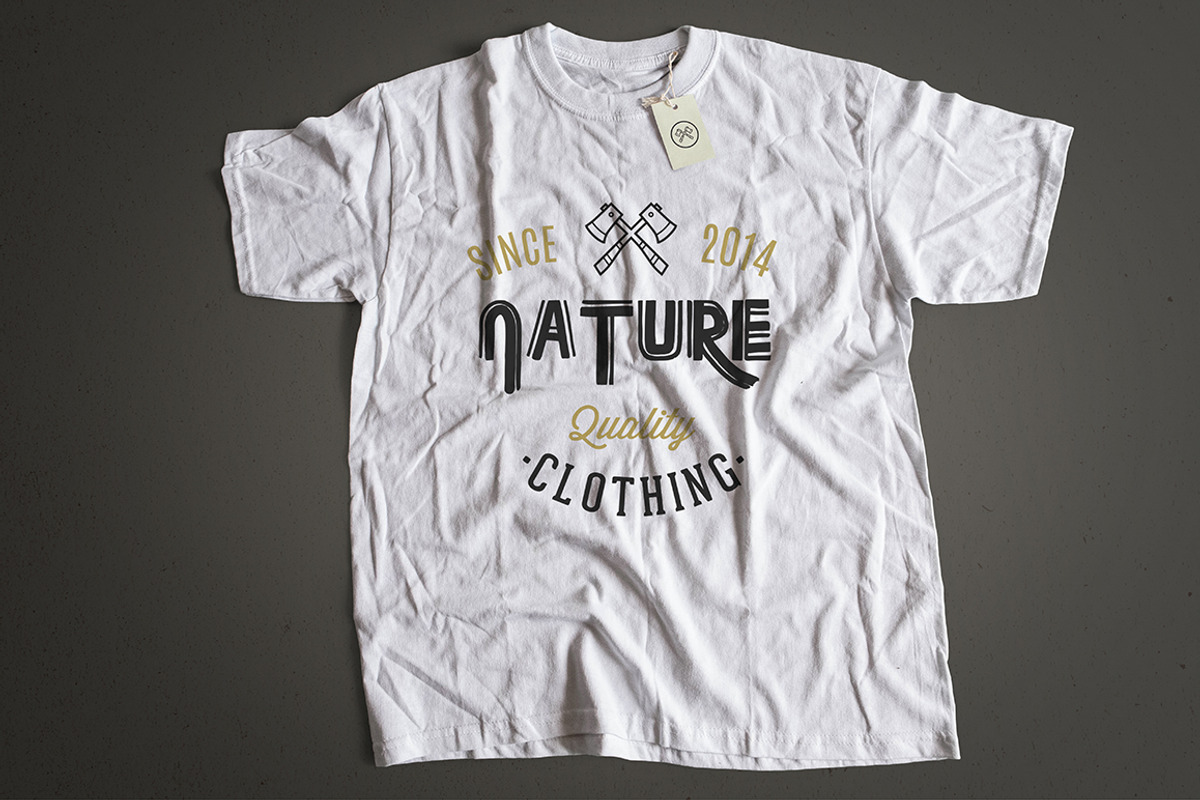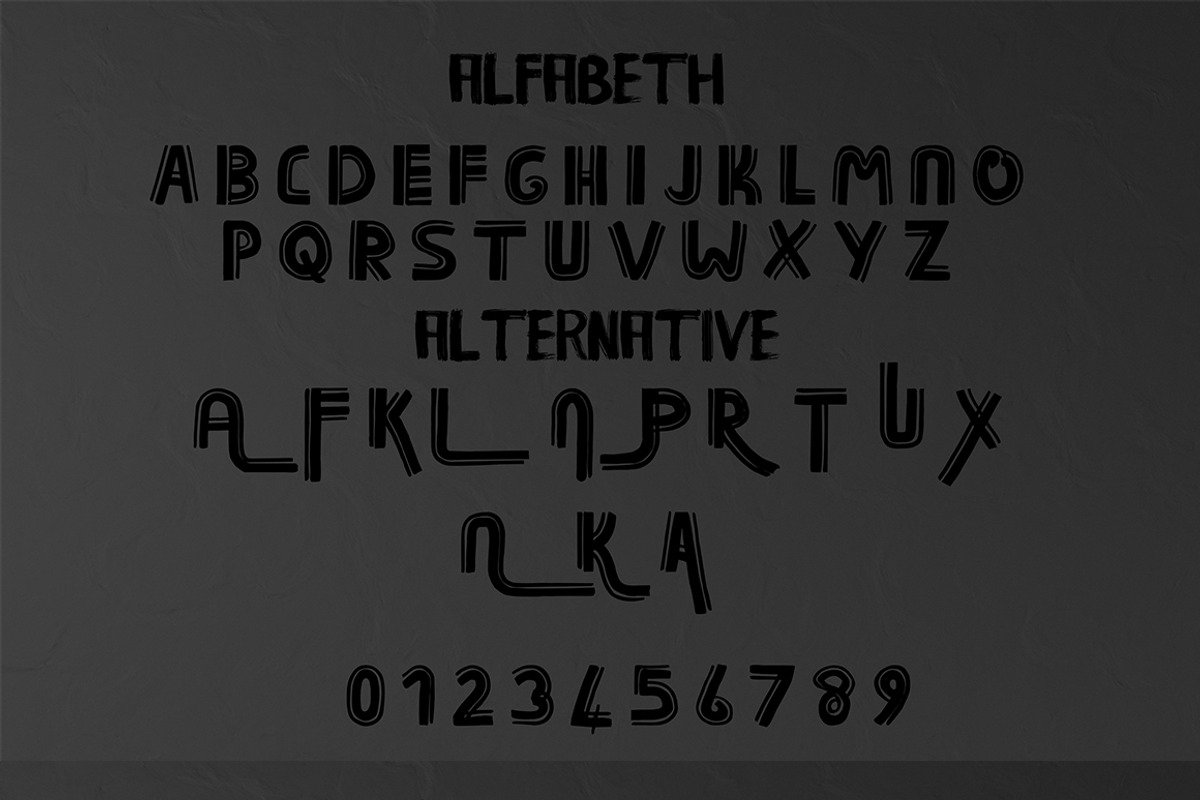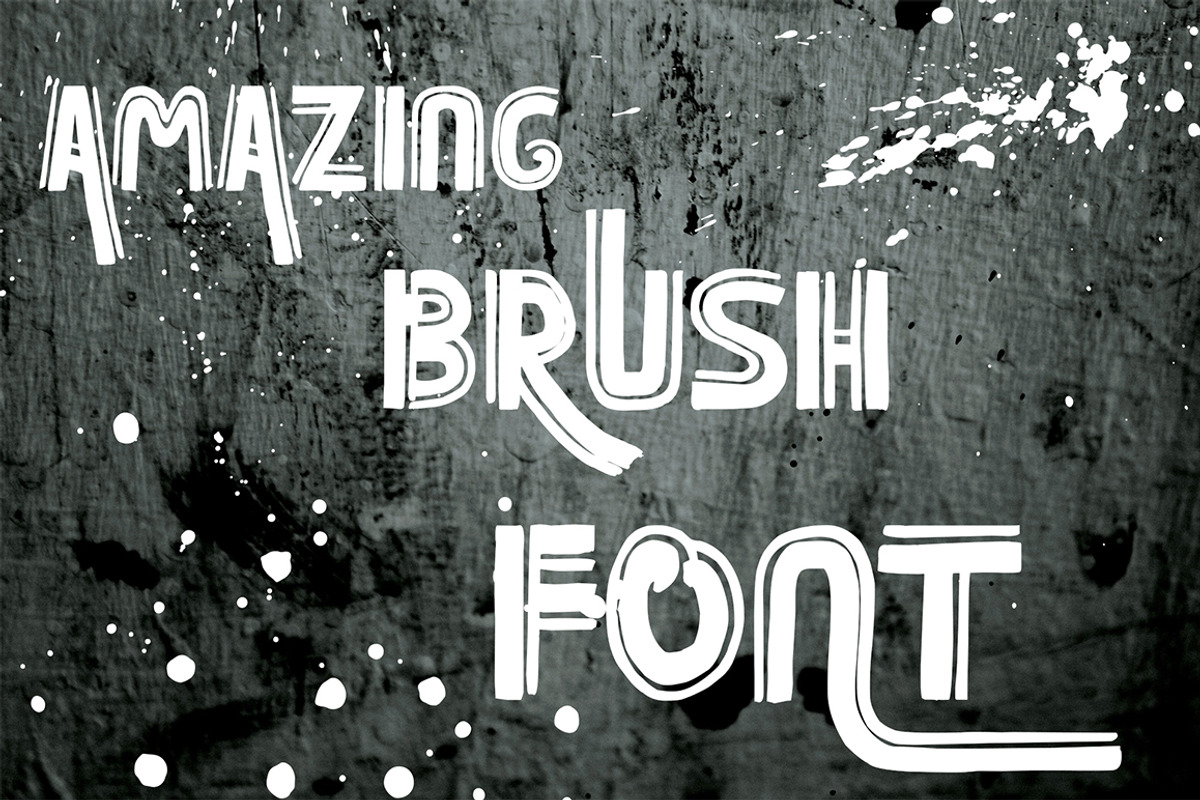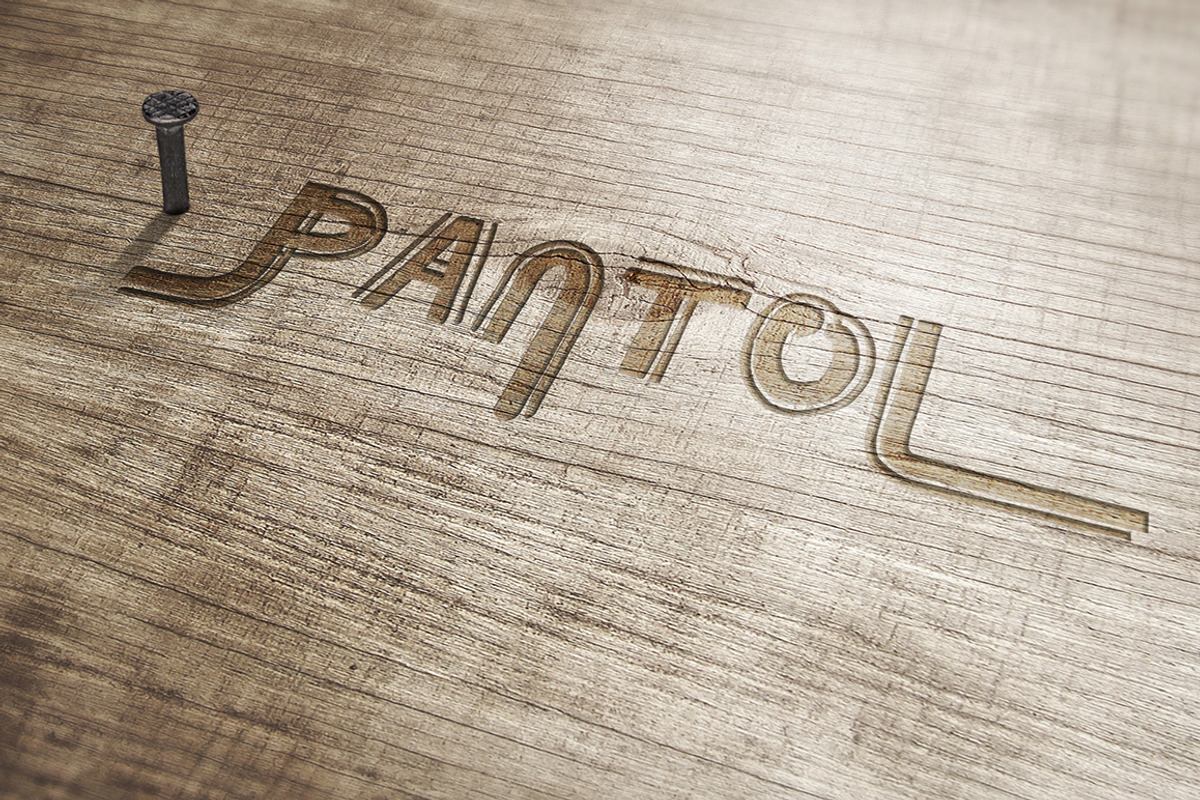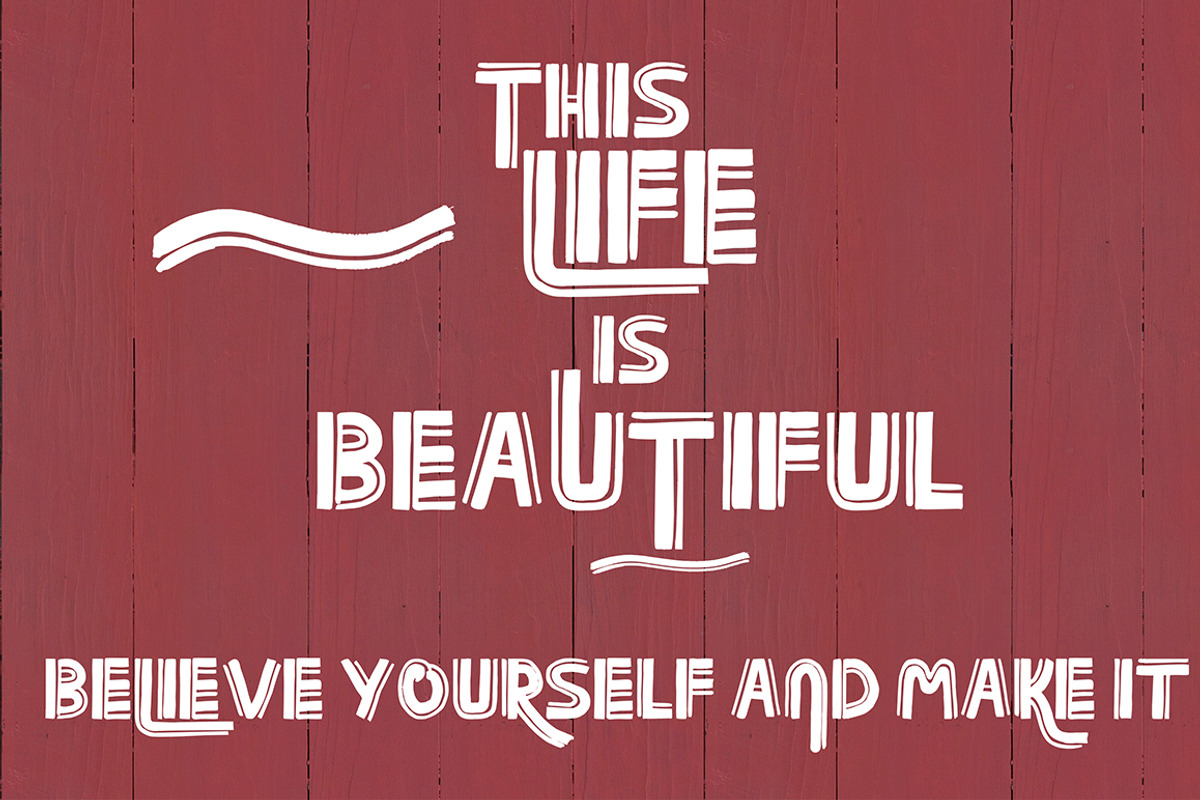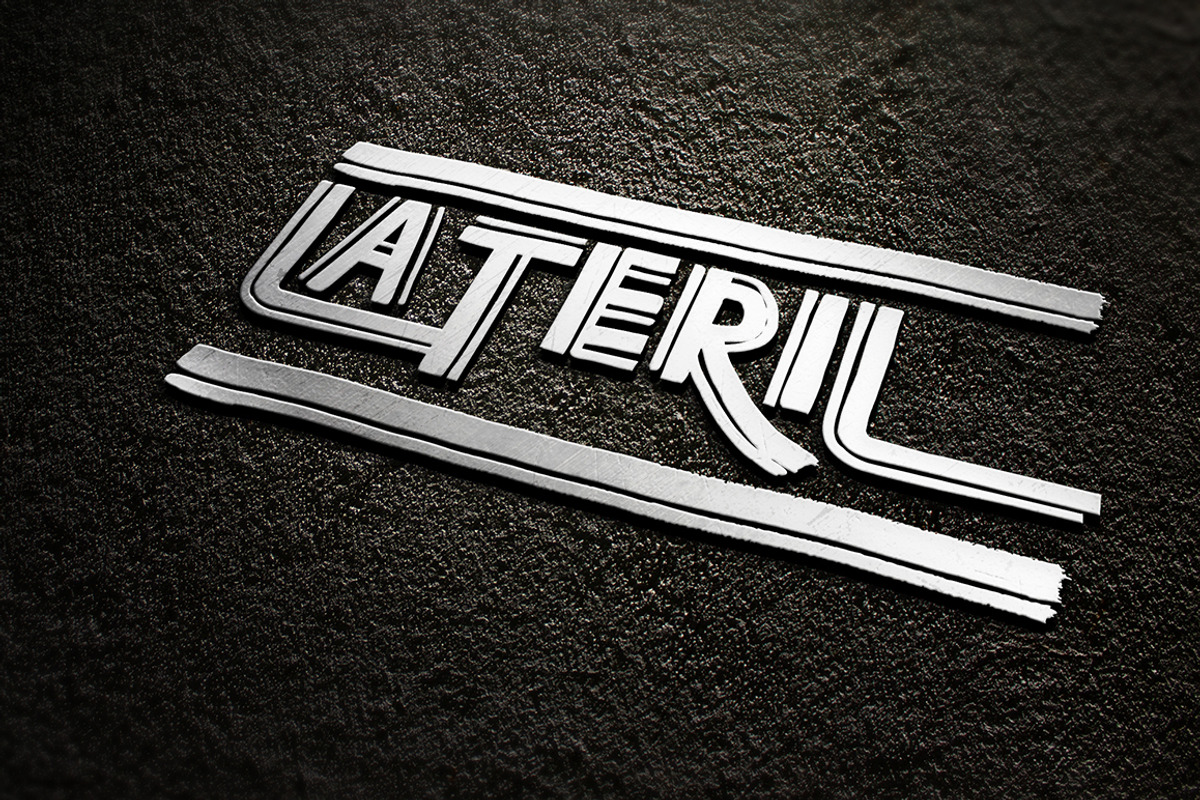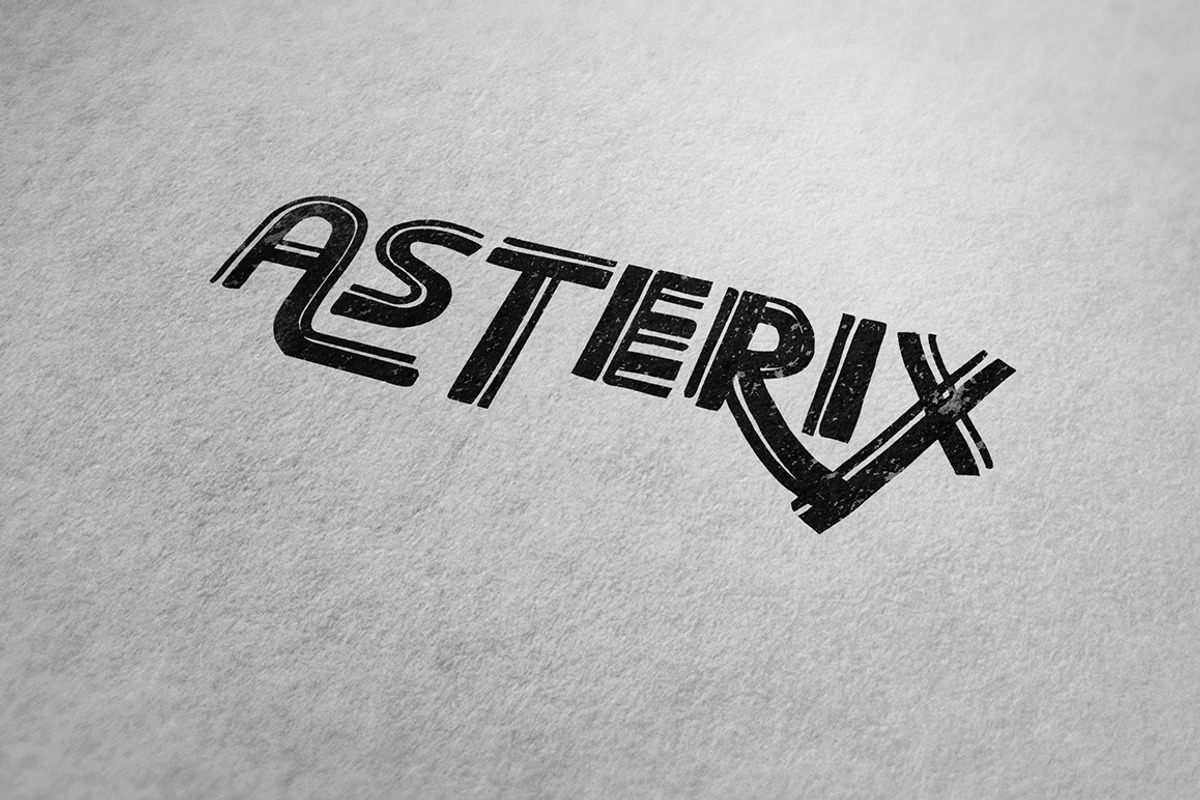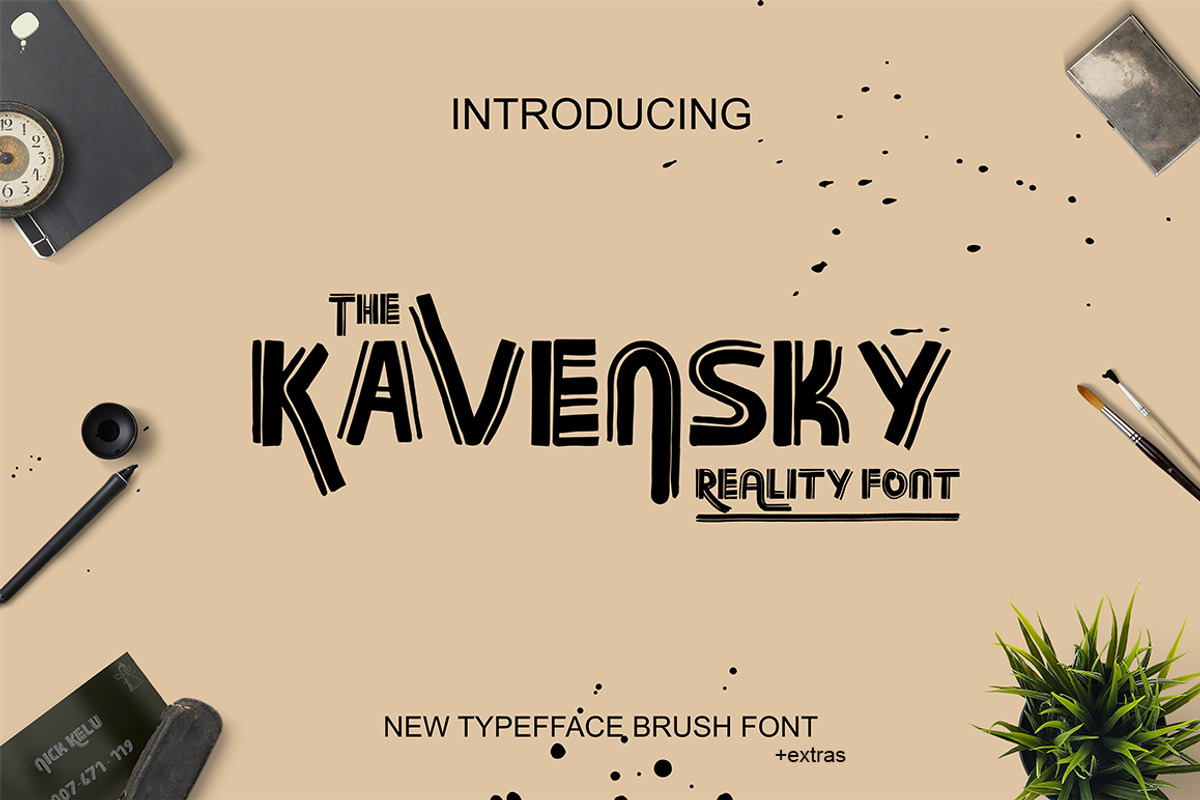
Kavensky Brush Font
Kavensky Brush Font by JosephaStone is a font selected for branding, posters, packaging, typography.
- GREAT BRUSH FONT Use Enjoy the Ride typeface to make logo marks, posters, T-shirt designs or anything that requires that personal touch Extr
Why Kavensky Brush Font is worth a look
Kavensky Brush Font by JosephaStone fits naturally into Branding, posters, packaging, typography.